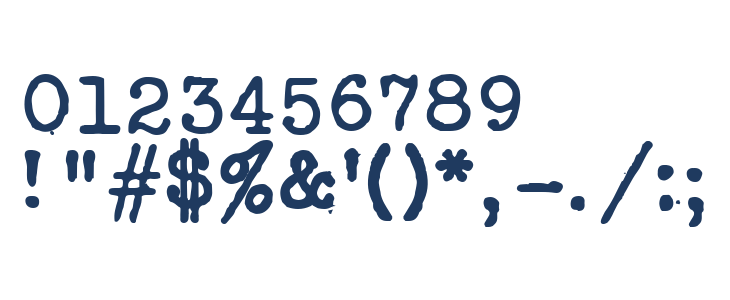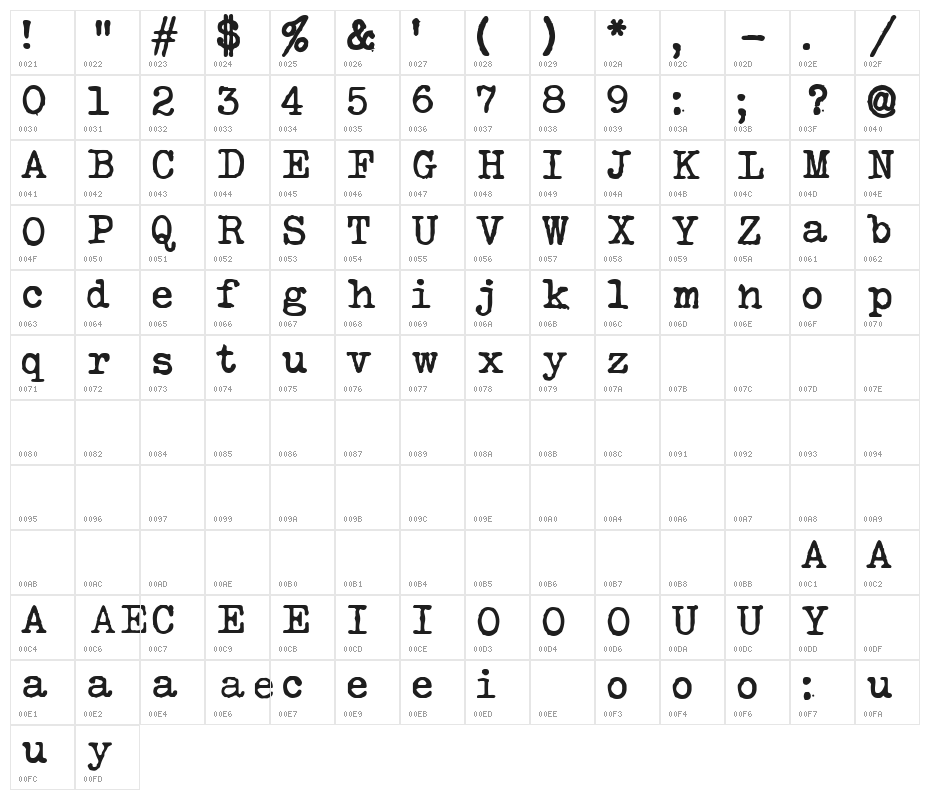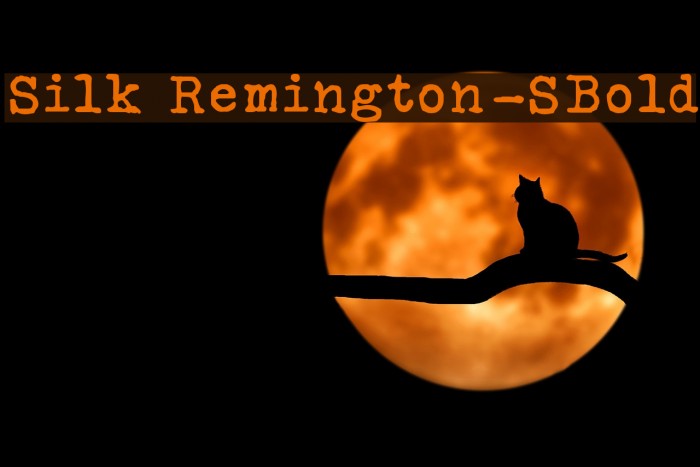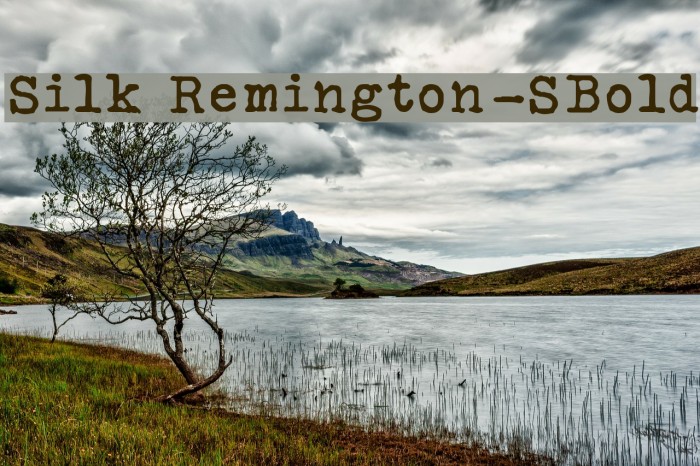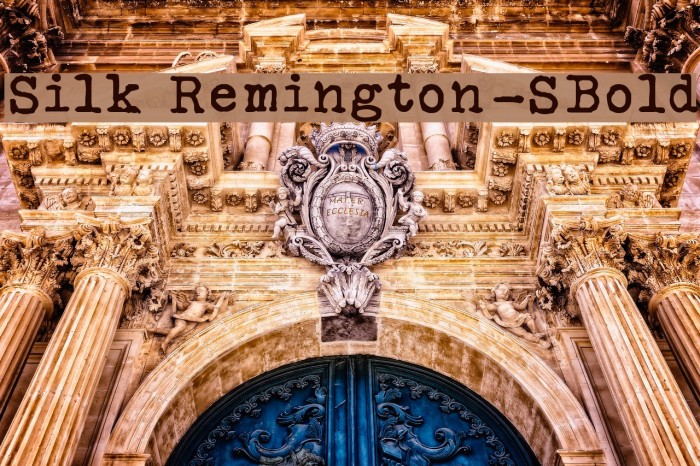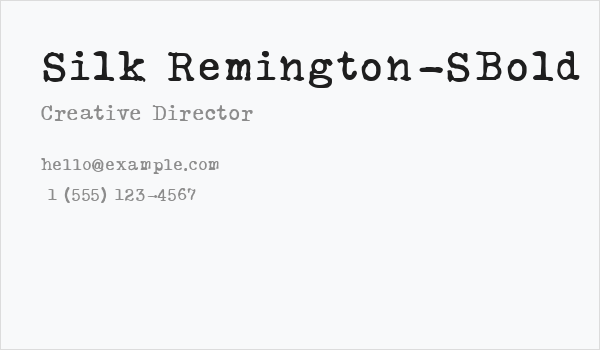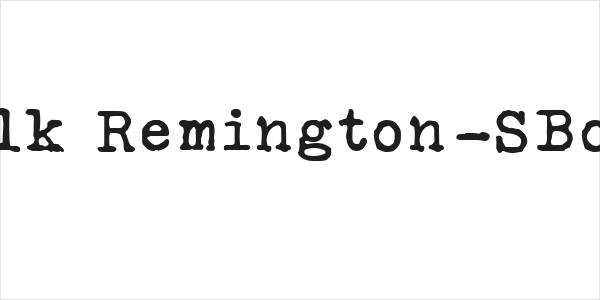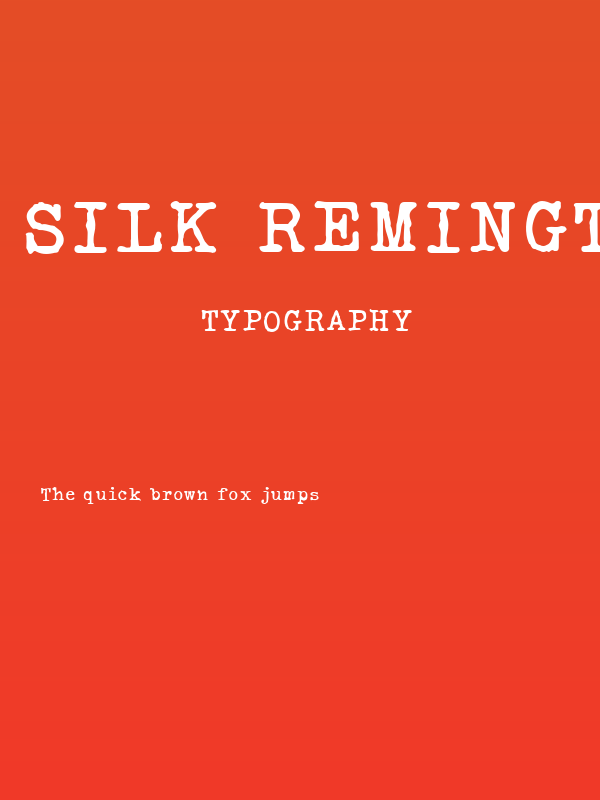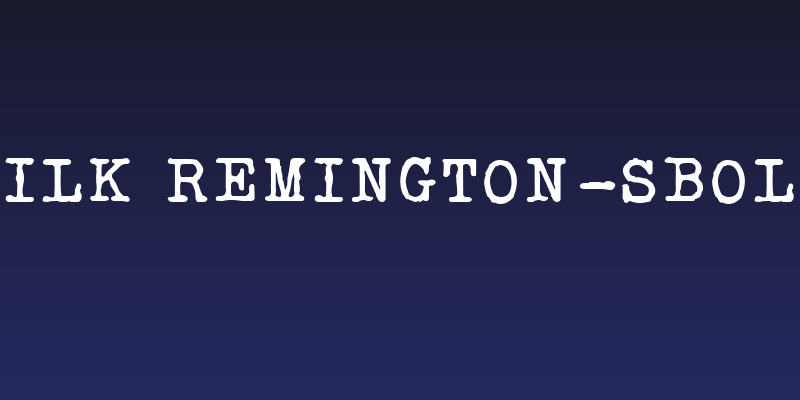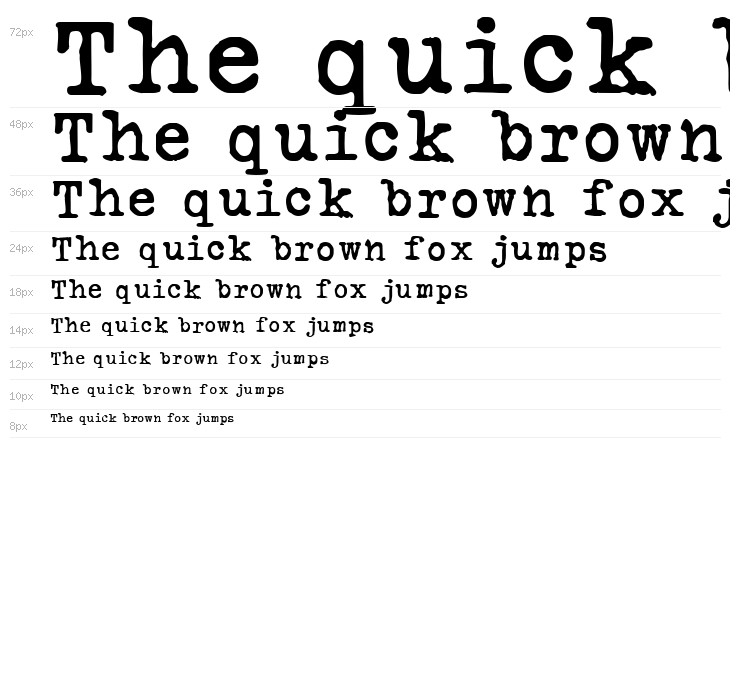
Silk Remington-SBold Font
Silk Remington-SBold Description
This typeface exudes a vintage, typewriter-inspired aesthetic with its bold, slab serif design. Each character is distinct, featuring slightly irregular edges that give it a worn, mechanical feel reminiscent of old typewritten documents. The uppercase letters are robust and commanding, while the lowercase letters maintain a consistent style, offering a harmonious balance. Numerals are clear and legible, making them suitable for various applications. The special characters retain the same rugged charm, ensuring a cohesive look across all text elements. This font is ideal for projects that require a touch of nostalgia or a retro vibe.
| Proposed Projects | Perfect for retro-themed designs, vintage posters, typewriter art, and branding that seeks a nostalgic touch. |